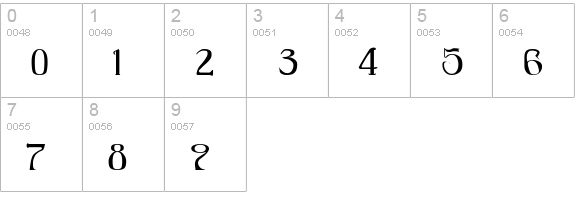
BlackAdderII Font Details
The BlackAdderII font is a stylish and elegant typeface that exudes sophistication and charm. Its intricate details and classic design make it a perfect choice for projects that require a touch of class and sophistication. The flowing curves and sharp edges of the letters create a unique and eye-catching look that is sure to capture attention. What sets BlackAdderII font apart is not only its stunning aesthetic appeal but also its versatility. Whether you're designing a wedding invitation, crafting a logo for your business, or creating a poster for an event, this font is sure to elevate your project to the next level. And the best part? BlackAdderII font is completely free to download at FontsMarket.com. So you can enjoy all the beauty and elegance this font has to offer without breaking the bank. Don't miss out on this fantastic opportunity to enhance your designs with the timeless charm of BlackAdderII font. Download it today and let your creativity shine!